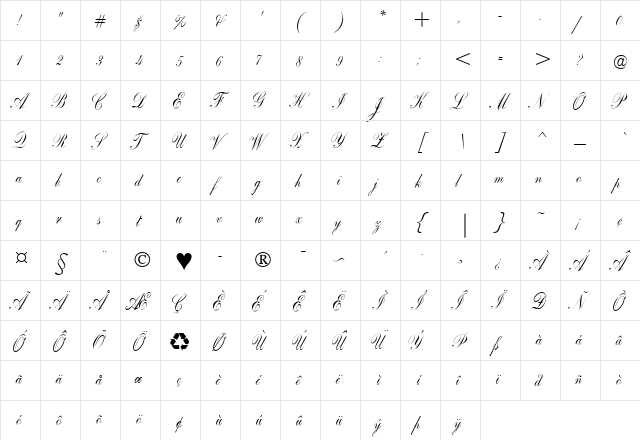
CopperplateScript Regular
Design Context for CopperplateScript Typeface
CopperplateScript brings a calligraphic fluidity to the page — its connecting strokes and expressive curves give it an unmistakably human quality.
Font Pairing: Combine CopperplateScript with a simple geometric sans for maximum contrast — the tension between flowing curves and clean structure is a classic typographic pairing.
Pro Tip: Pair CopperplateScript with a clean sans-serif for supporting text. The contrast between fluid script and geometric structure creates an elegant typographic hierarchy.